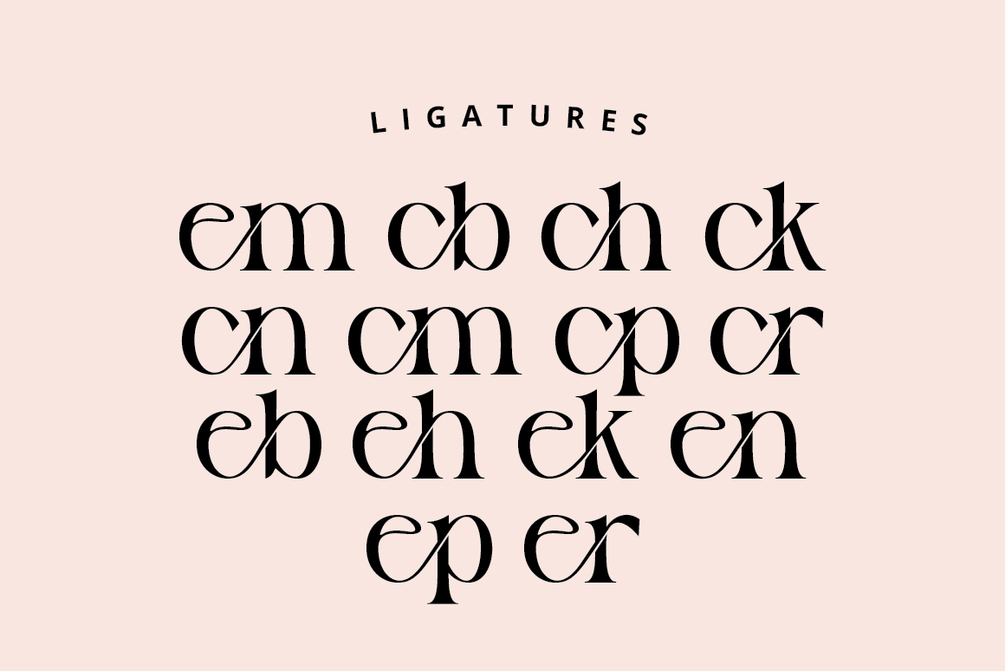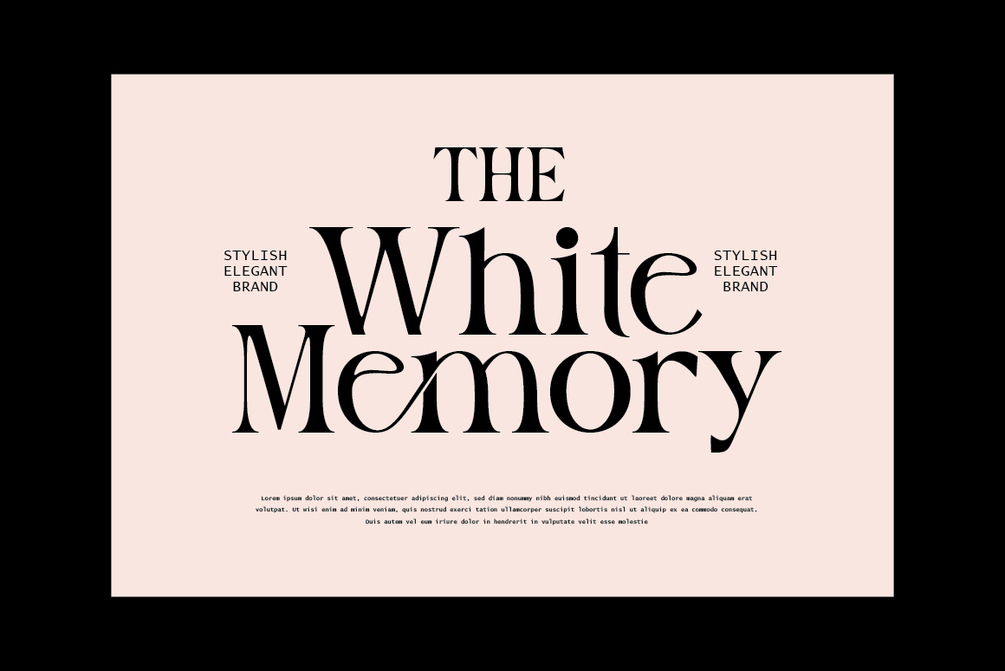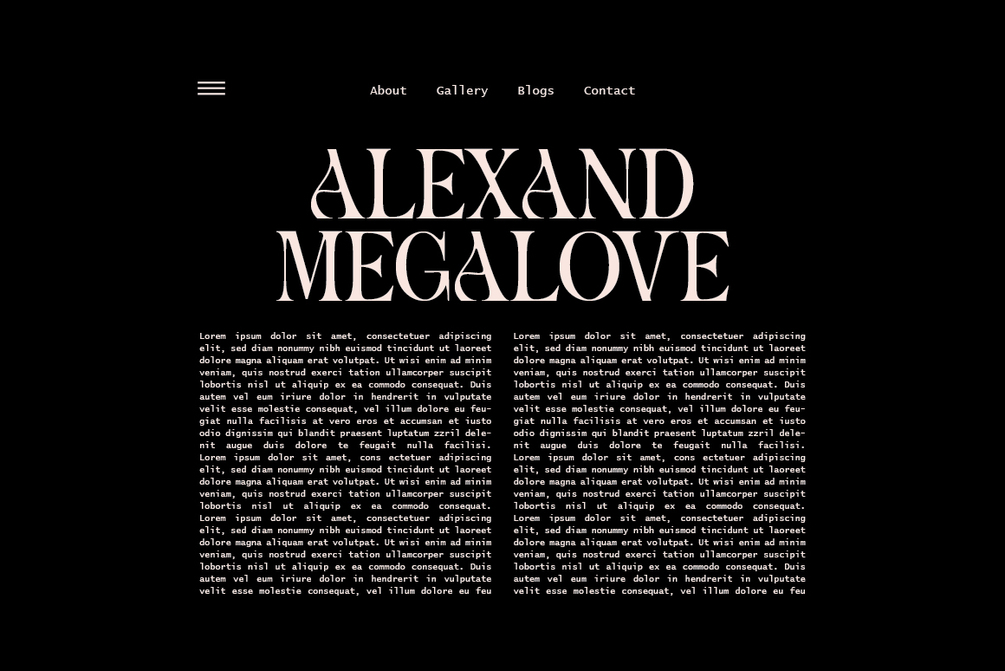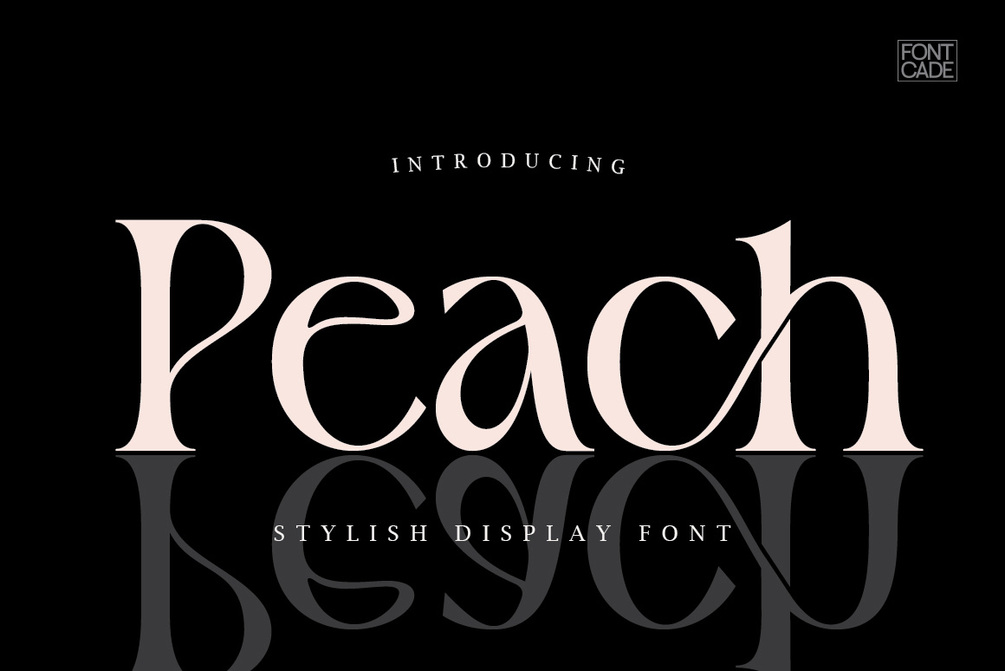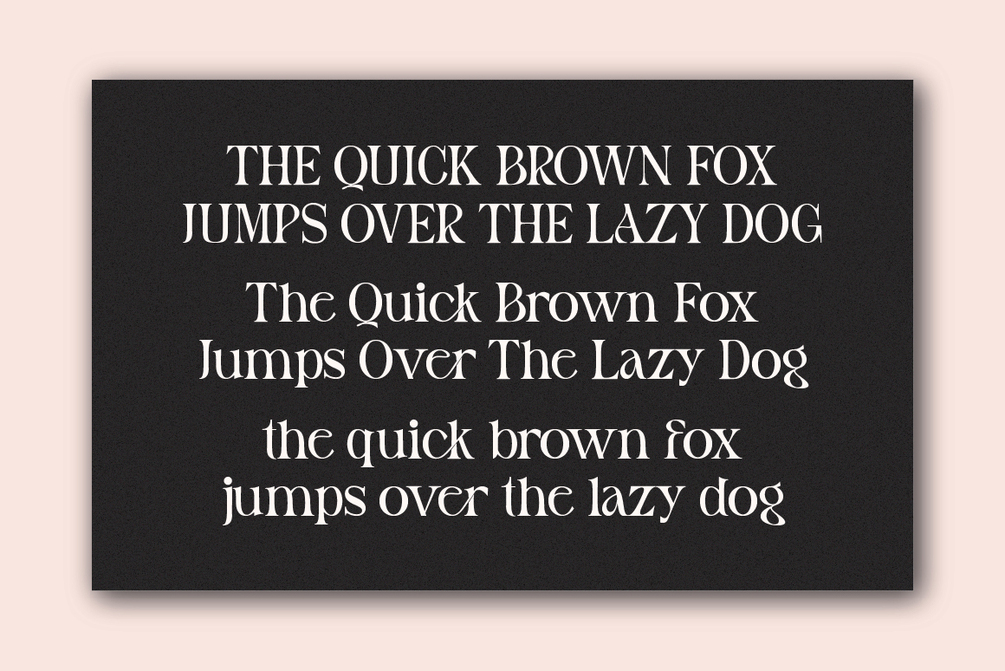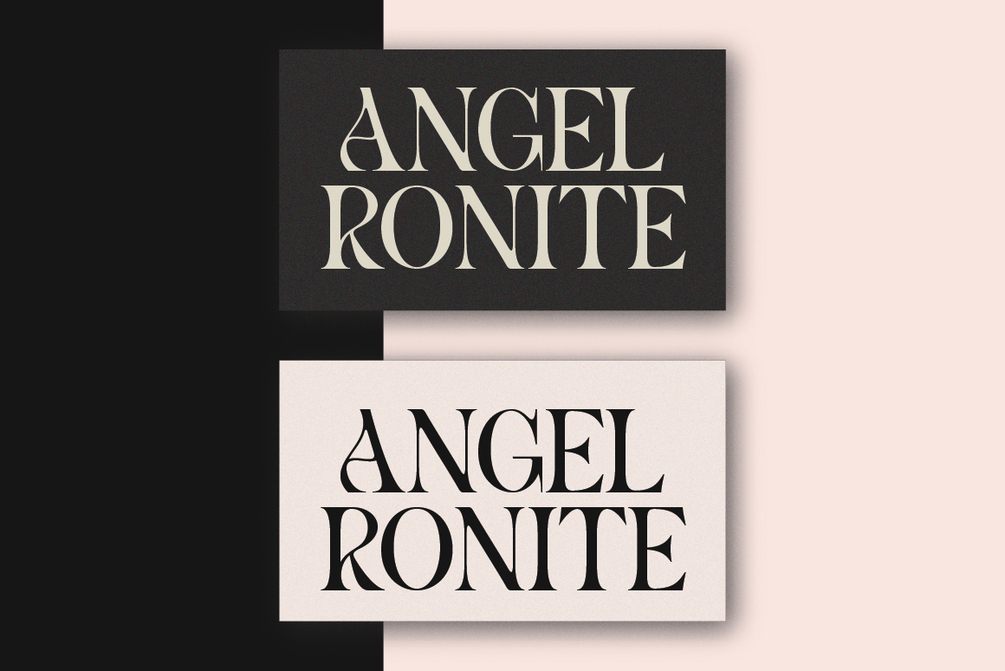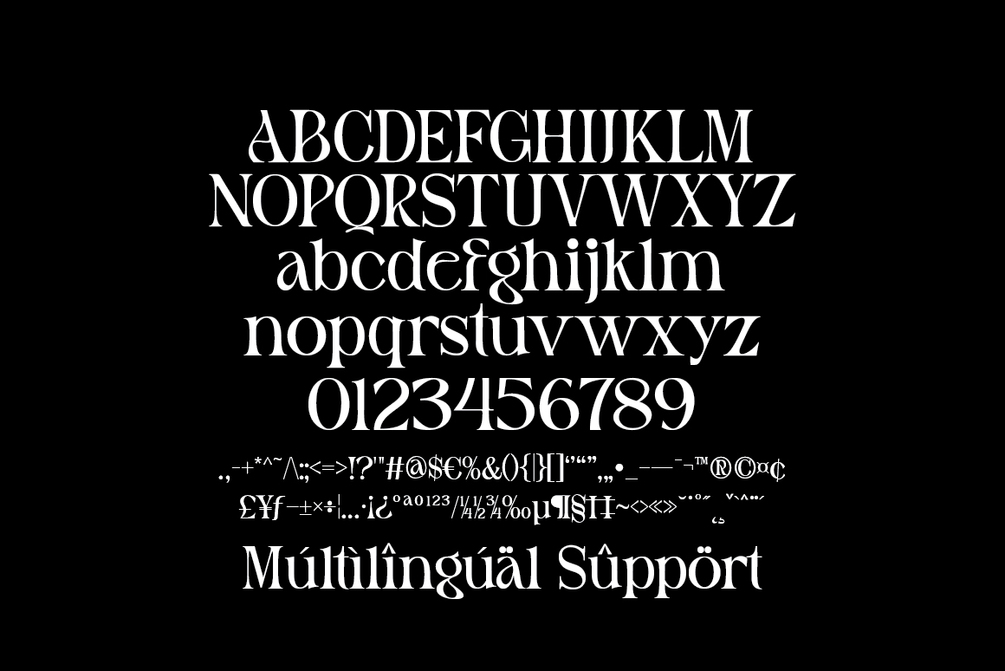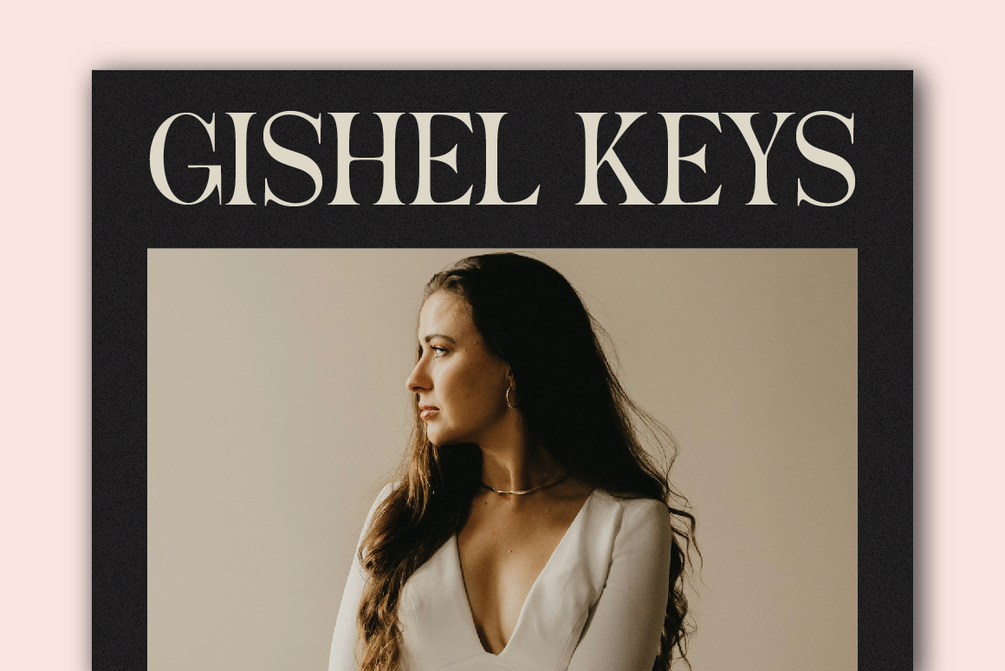
Peach Font
Peach is a stylish and elegant serif font with sharp contrast and artistic curves. Inspired by classic editorial typography, Peach is perfect for logos, headlines, packaging, and high-end branding projects.
It offers a refined balance between tradition and modern style, making your design look premium and timeless.
• Uppercase, Lowercase, Numeral & Punctuation
• Stylish Ligatures
• PUA Encoded & Multilingual